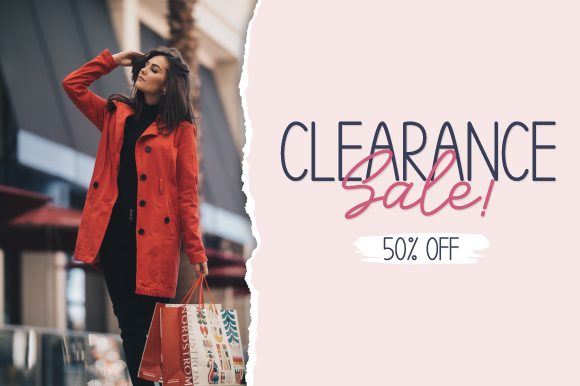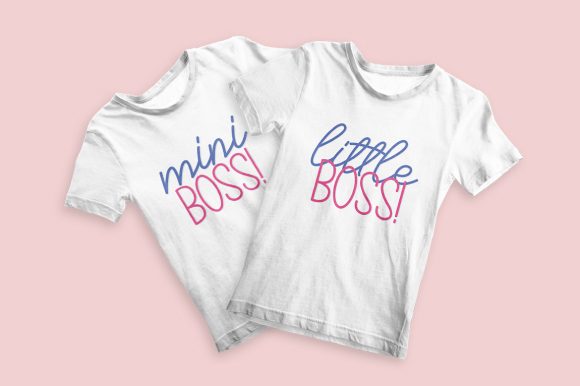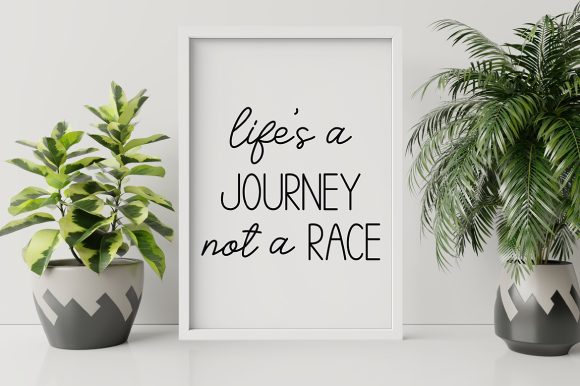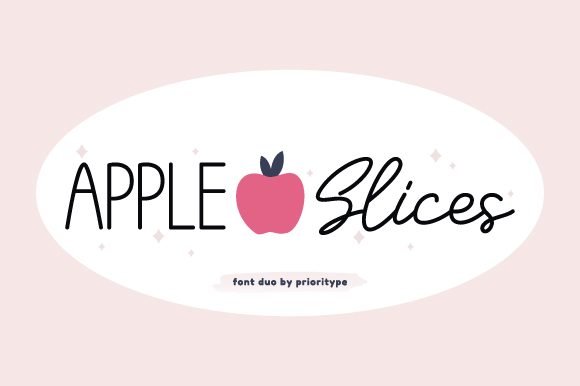
Introduction to Apple Slices Font
Apple Slices is a thin and delicate script font.
Its sweet and full of life style makes this font a wonderful choice for brightening up your designs .
Apple Slices Font offers exceptional quality and versatility, making it a valuable addition to your design toolkit. Whether you’re creating for personal projects or commercial use, Apple Slices Font delivers professional results.